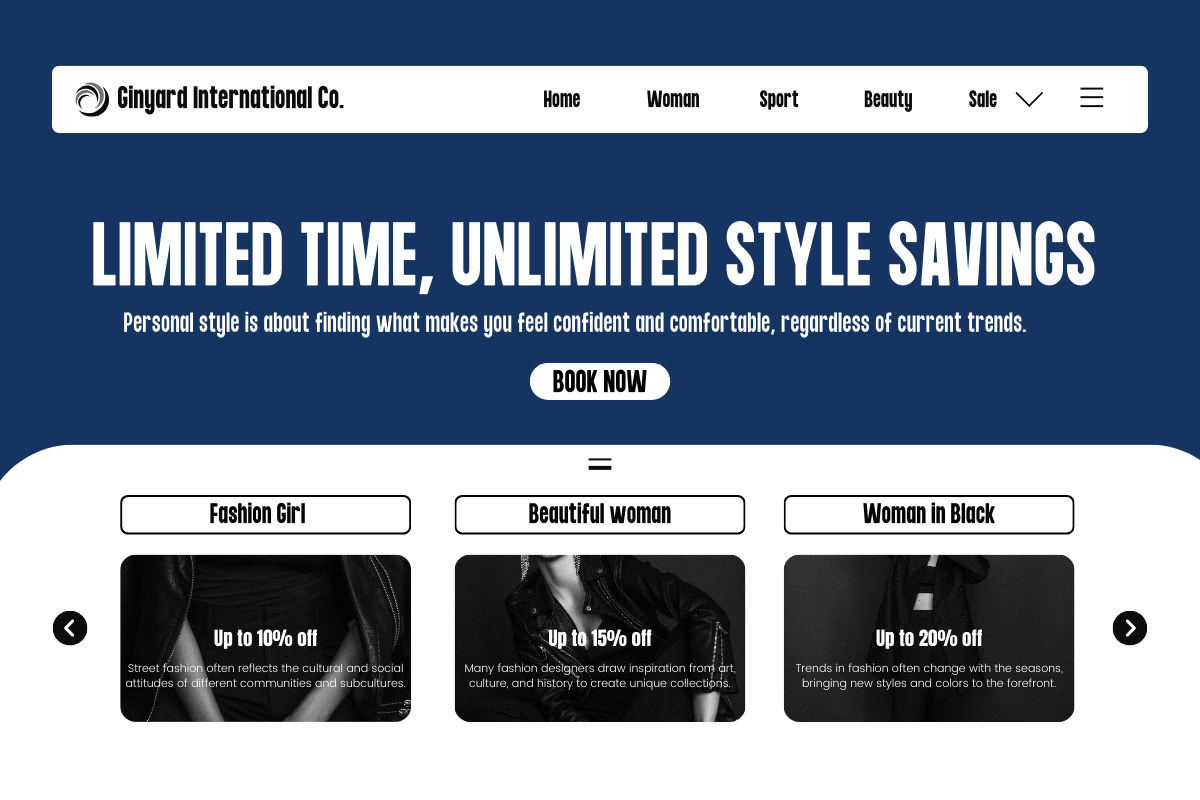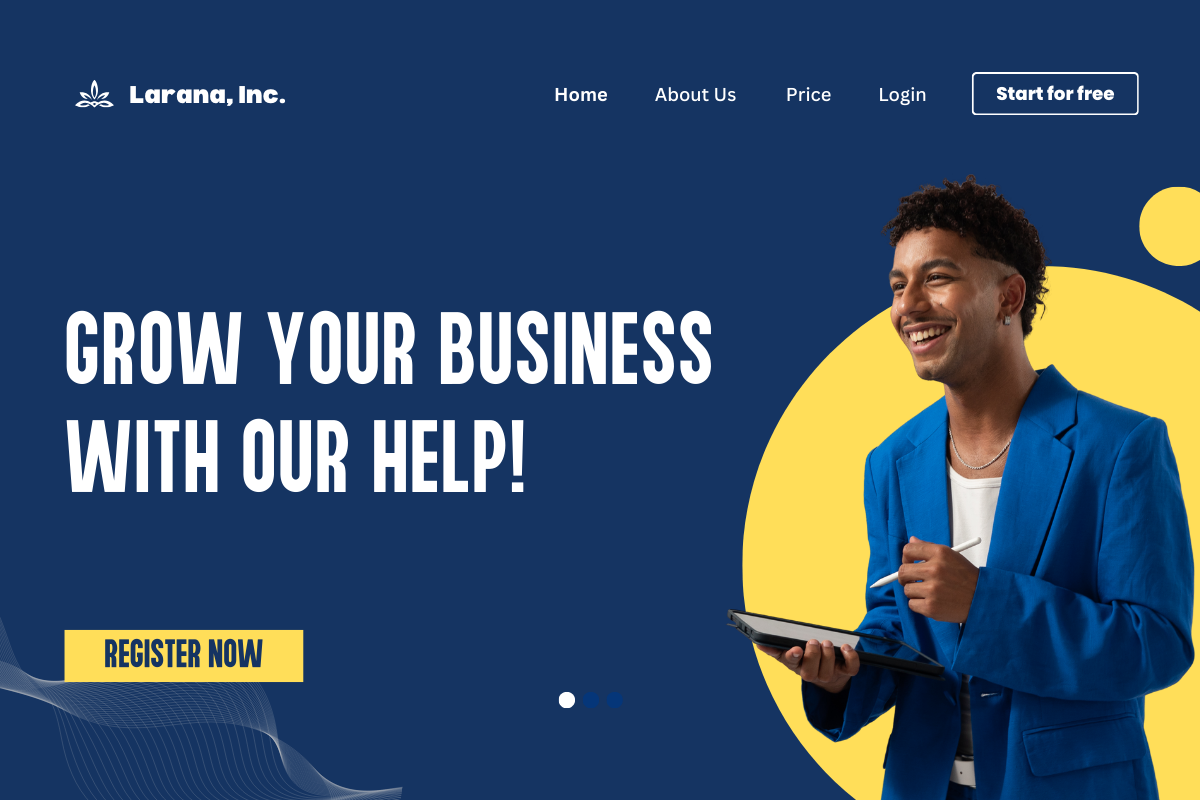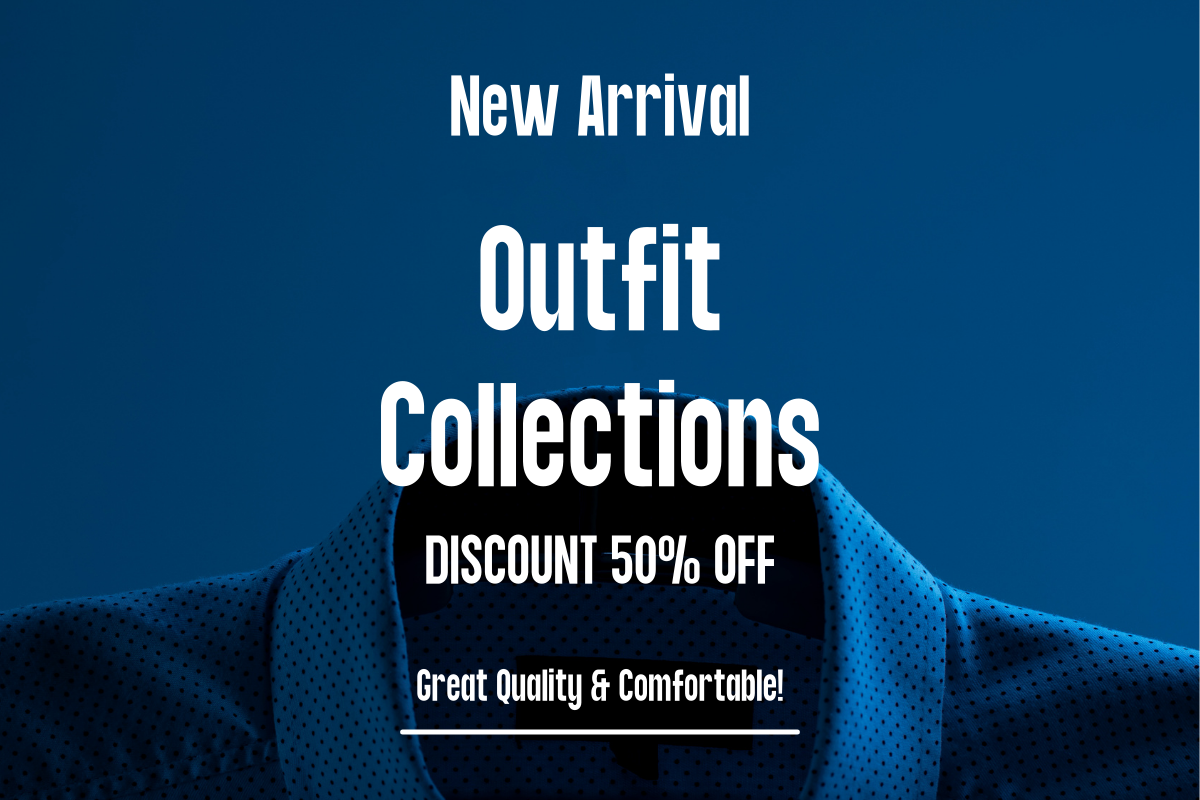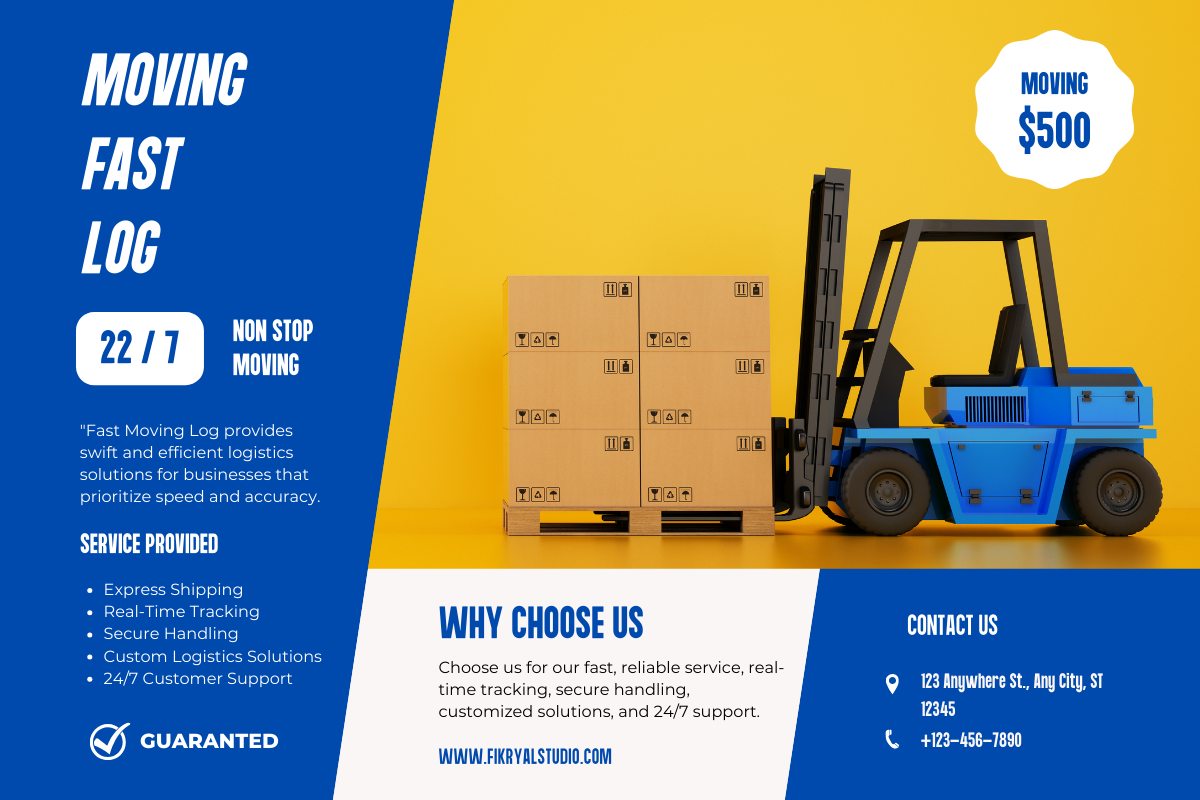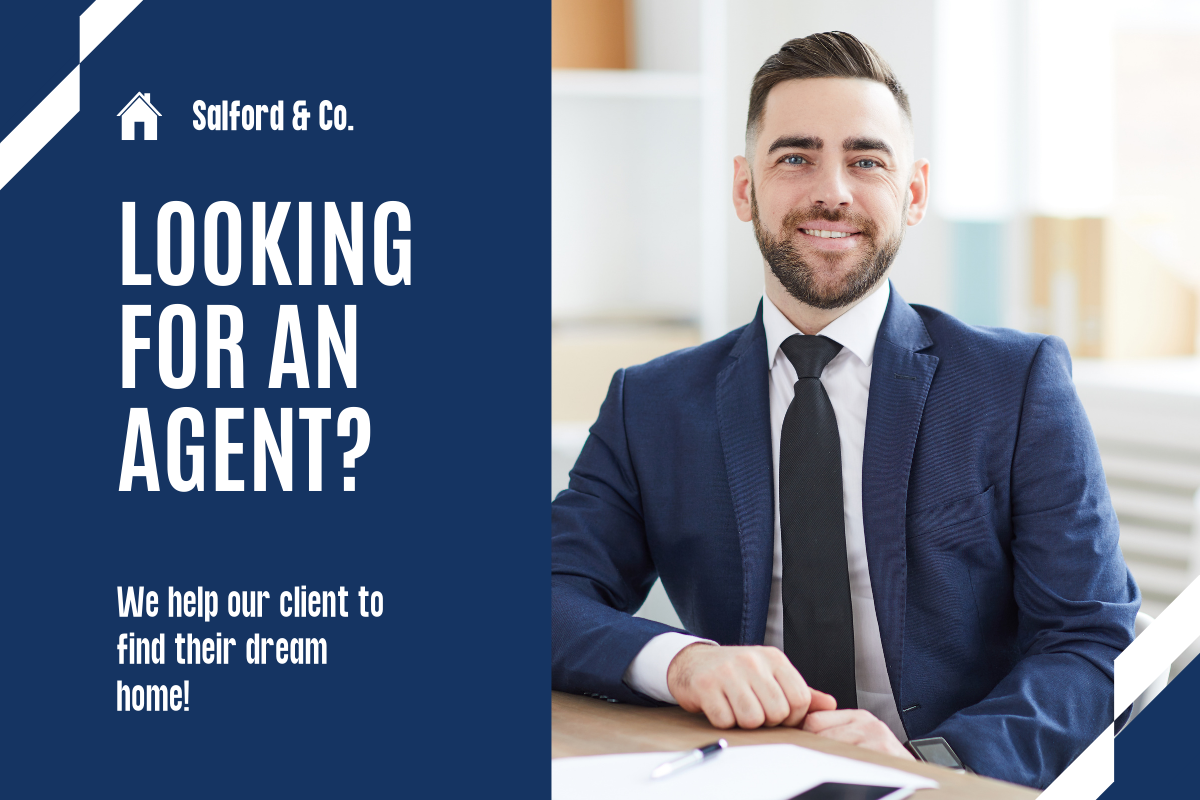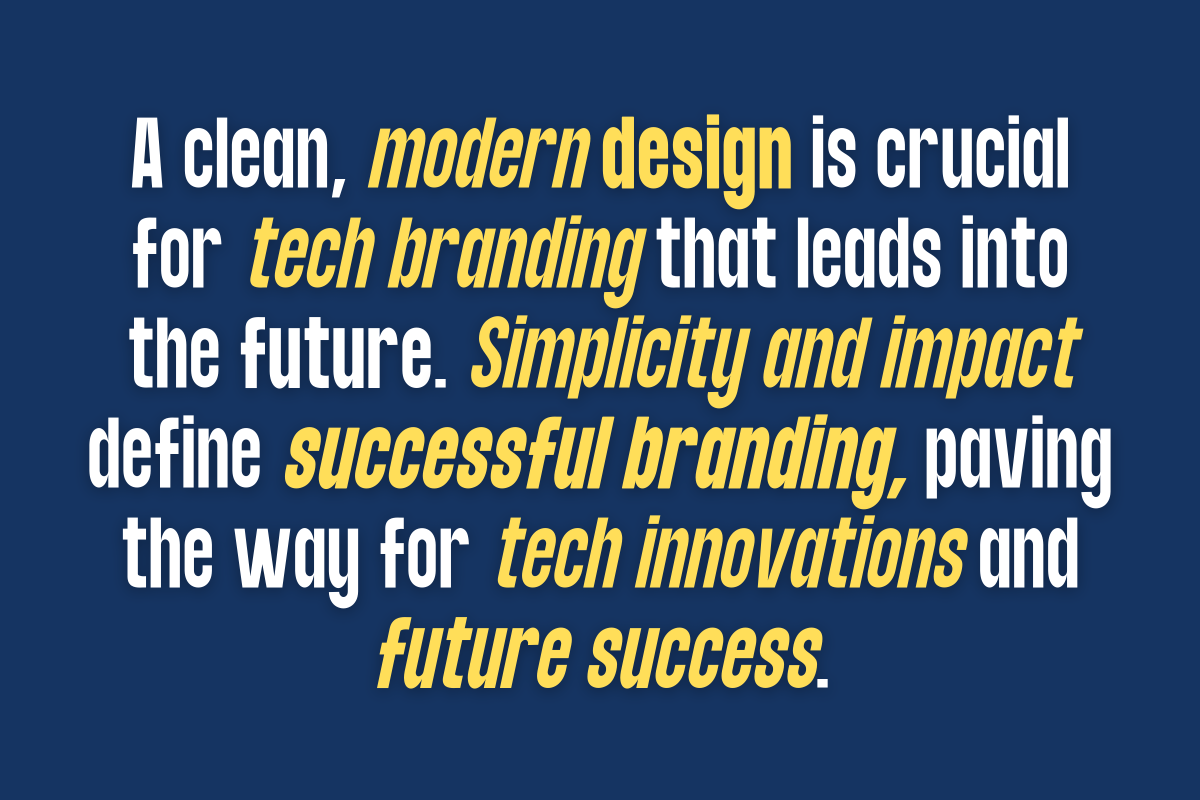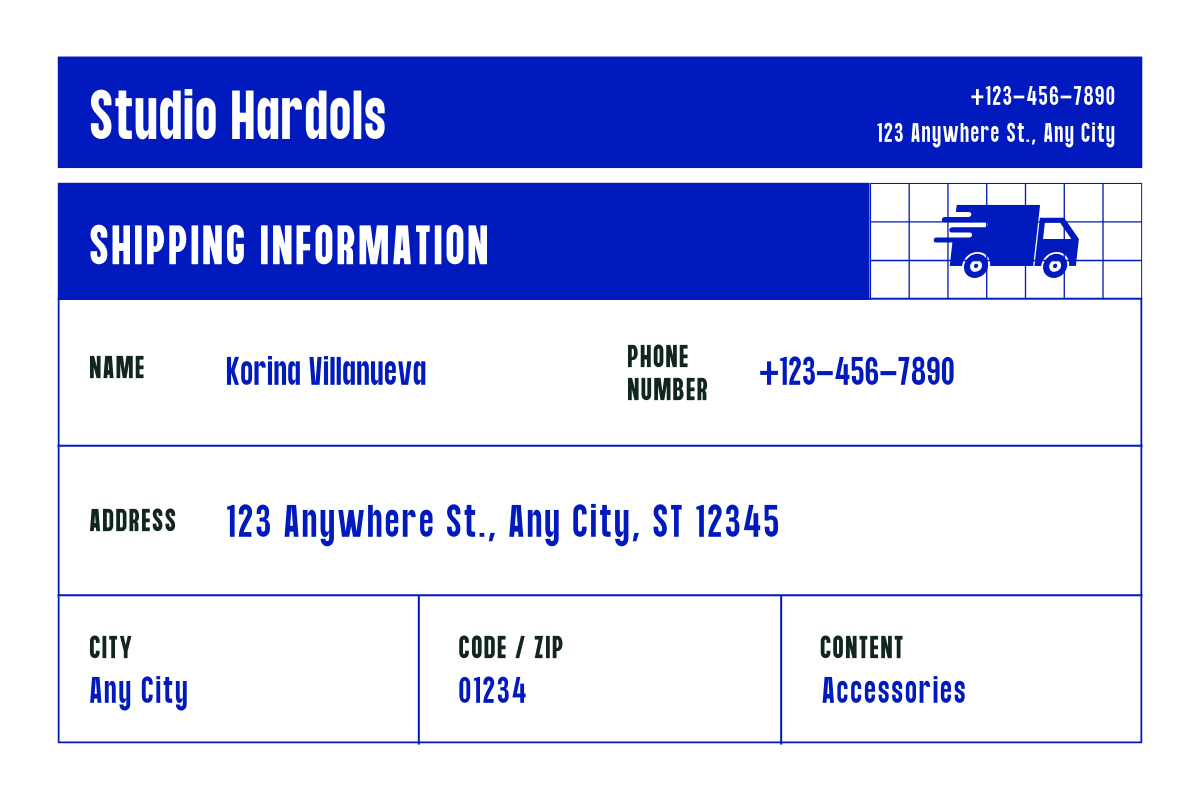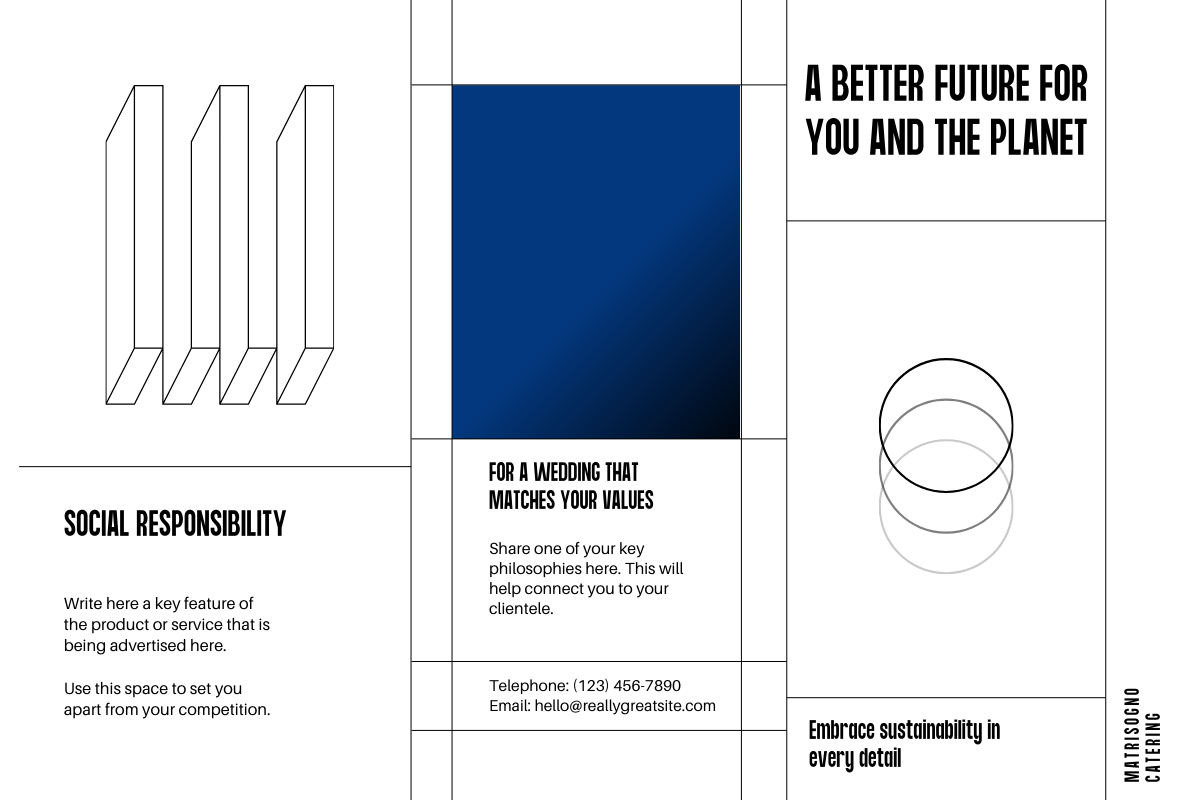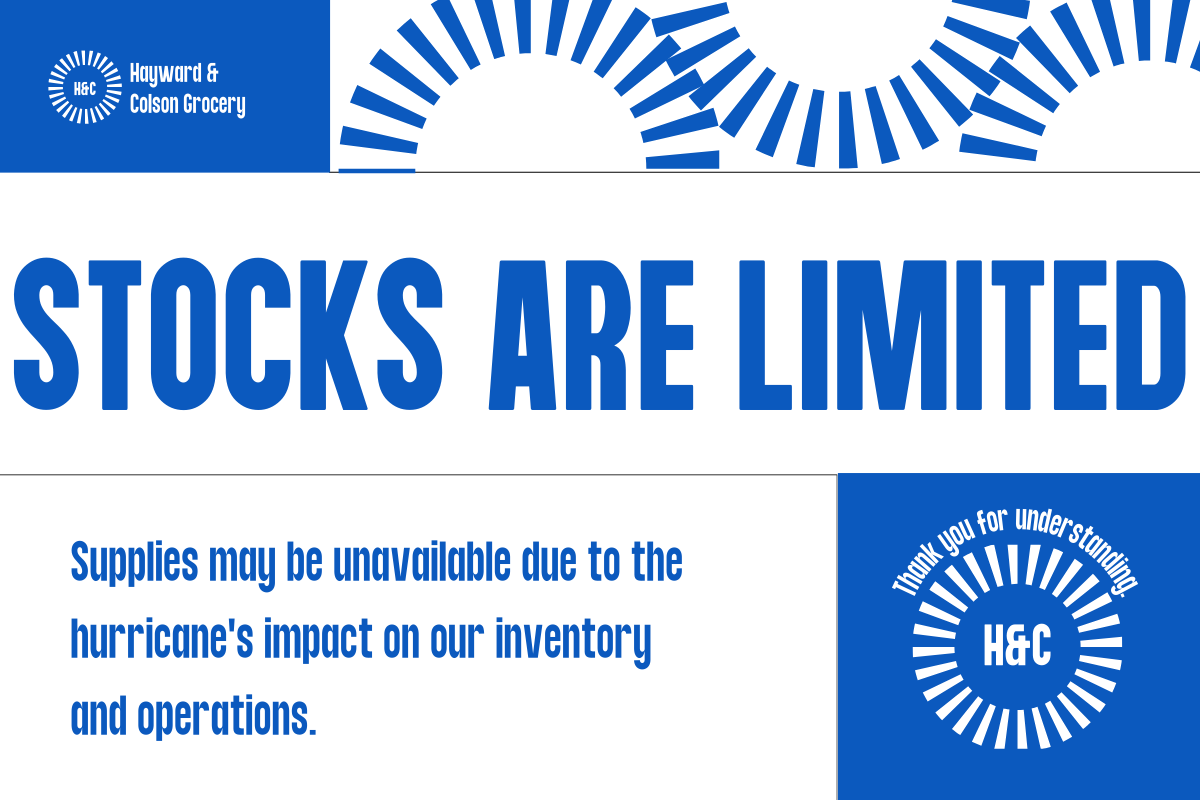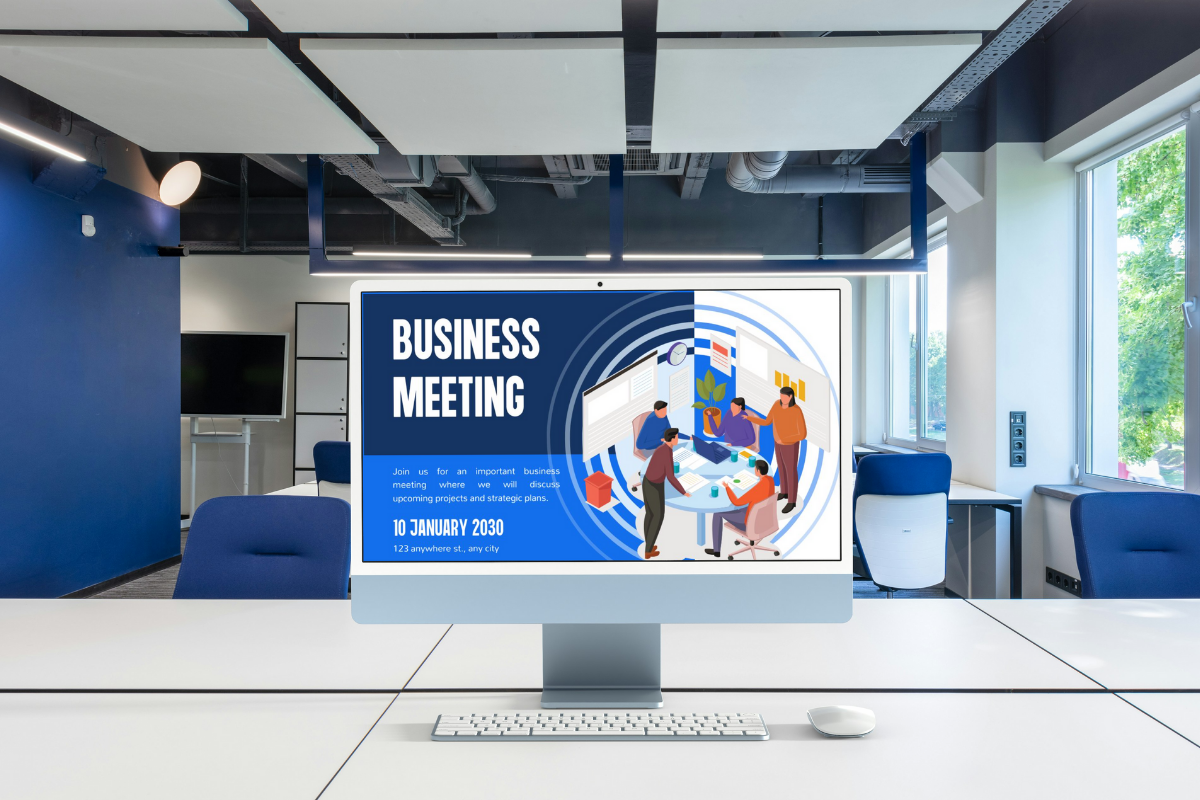
Maneuver Gather – Condensed Font
Maneuver Gather is a sans-serif condensed font designed to bring a modern and elegant touch to your design projects.
With its slim and compact proportions, this font is ideal for designs that require space efficiency without compromising readability.
Available in six diverse styles—Light, Light Italic, Regular, Italic, Bold, and Bold Italic—this font family offers maximum versatility, allowing you to create strong typographic hierarchies within a single font family.
Perfect for branding, editorial, web, and packaging design, Maneuver Gather ensures that your message is conveyed with clarity and style.